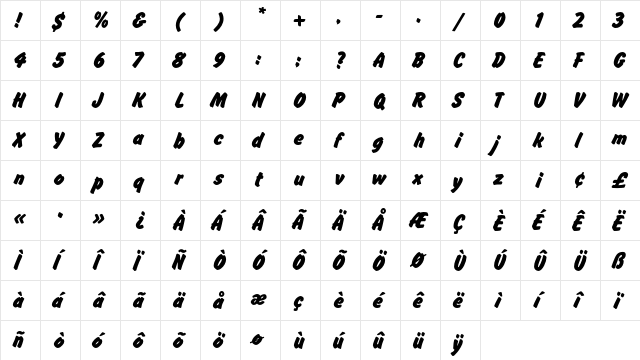
FlashEF Bold
Design Context for FlashEF Typeface
FlashEF is a composed and adaptable typeface that performs quietly and consistently across a wide range of design contexts. The heavy weight commands attention and anchors typographic hierarchies.